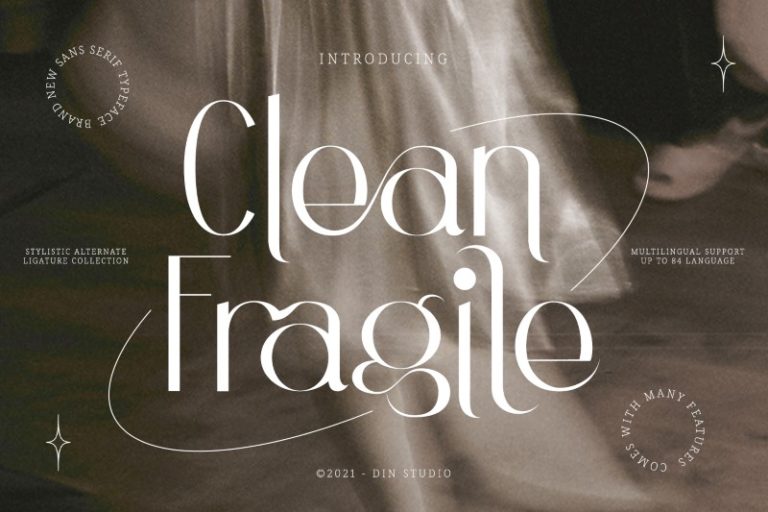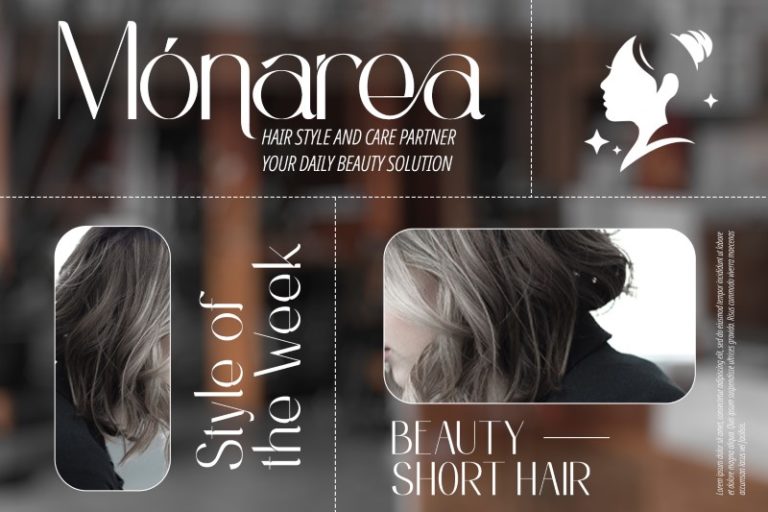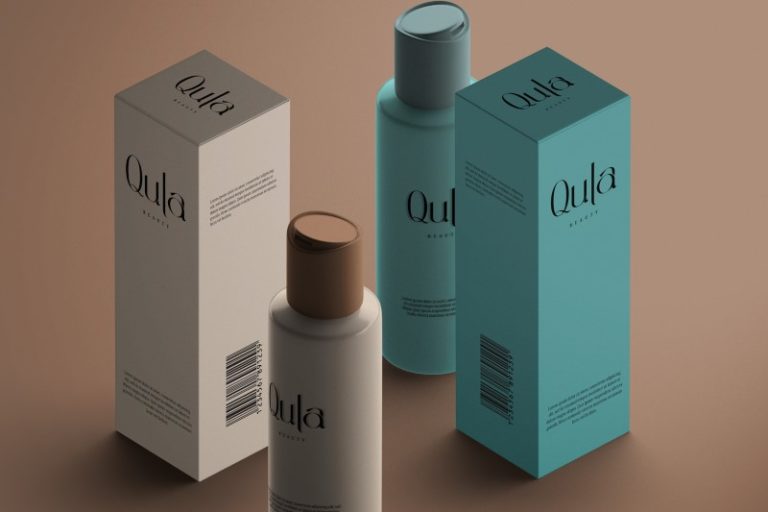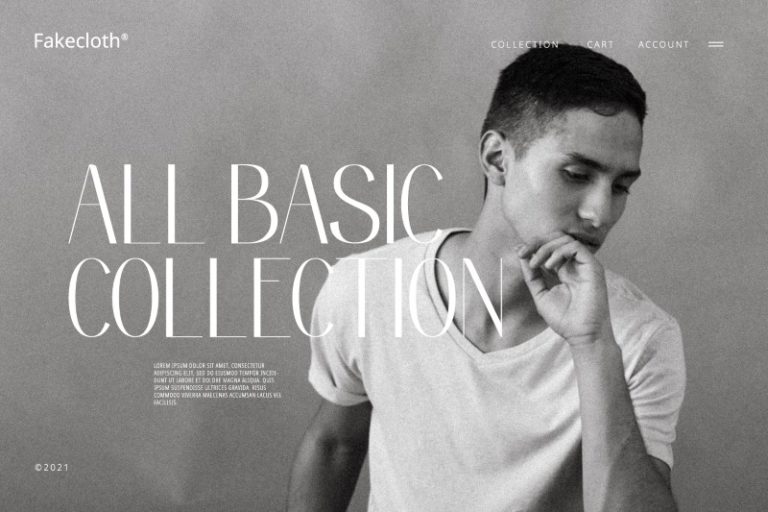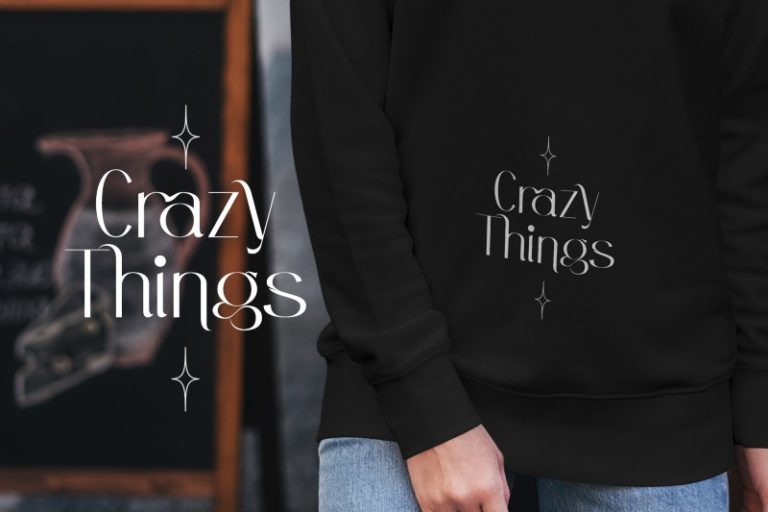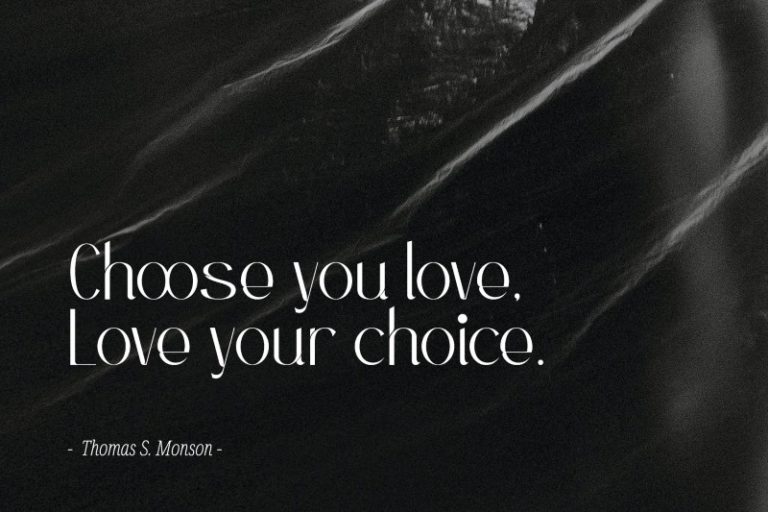
Clean Fragile – Elegant Serif Font
Have you been looking for a sans serif font? Do you dream of creating headings that stand out and inspire modern and artistic? Wait no more, we will give you the best choice. A Sans Serif Font: Clean Fragile Font.
Clean Fragile is a gorgeous sans serif font, designed with the modern vibe. This font is perfect for anything adventurous and direct. Every stroke, and curve was created to entice happiness and elegance. A real head-turner for your presentation, designs, website illustrations, and more.
The font includes Multilingual Supports to make your branding reach a global audience. Inspire your audience, clients, or guests with this beautiful, statement font.
Features include:
• Ligatures
• Stylish Sets
• Swashes
• PUA Encoded
• Numerals and Punctuations